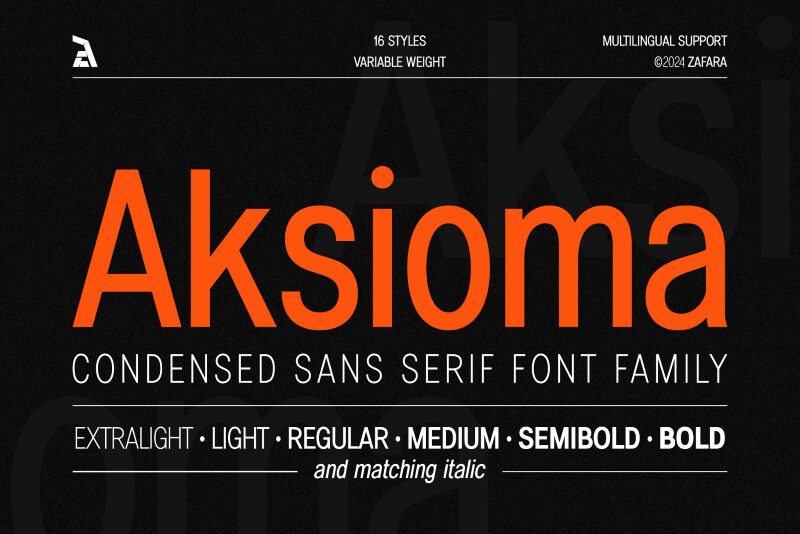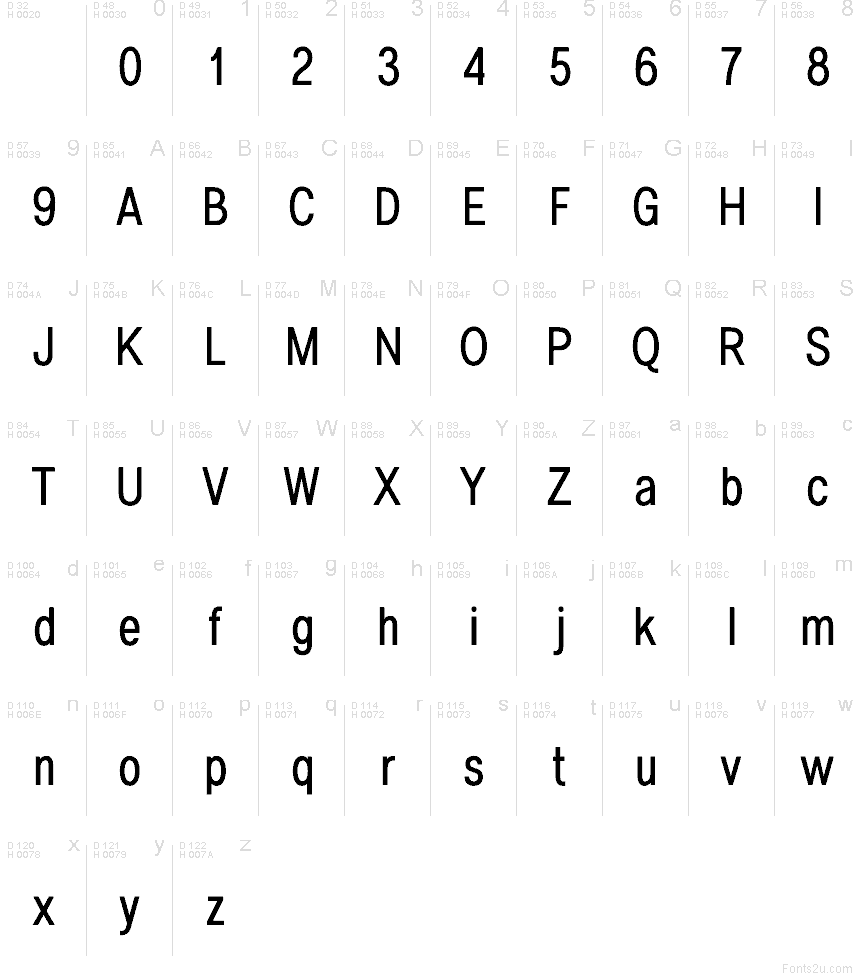
Aksioma DEMO
Aksioma font by Zafara Studios is a free sans serif typeface that tackles the everyday need for clean, readable text without feeling cold or generic. Its letterforms are steady and upright with just enough curve to feel friendly, so long words stay legible and short headlines look crisp instead of stiff. The spacing feels quietly tuned, helping paragraphs read smoothly on both screens and print, from small captions to roomy layouts.
Using Aksioma, you get a workhorse that shines on interface text, branding systems, pitch decks, editorial layouts, social graphics, and clean product packaging. This free font adapts easily to different roles: set it a bit tighter and larger for confident titles, or slightly looser for calm body copy. For a simple pairing, combine Aksioma for text with a subtle serif for accents or quotes to add contrast without visual noise.